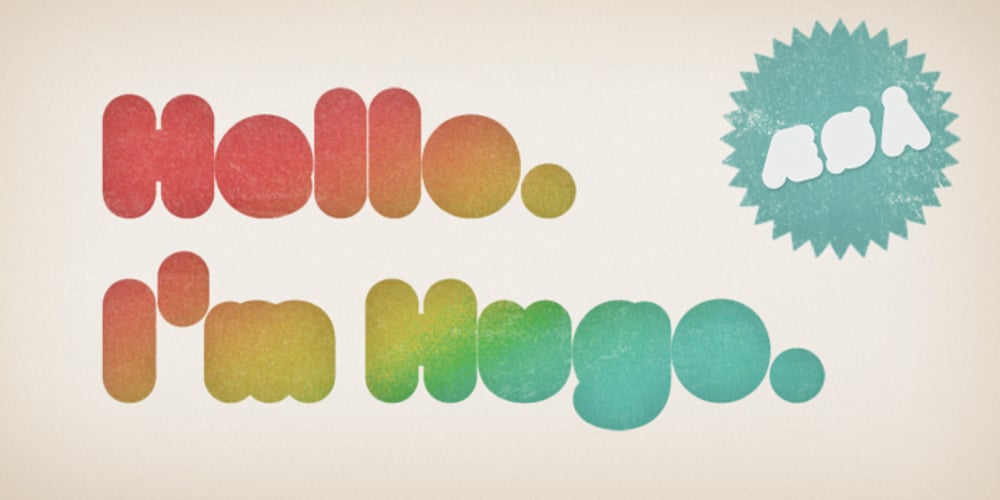
Hugo Font Family was designed by Morten Iveland and published by The Infamous Foundry. Hugo contains 1 styles and family package options. Hugo is a über bold and rounded display font. Perfect for headlines, logos and everything above the body.